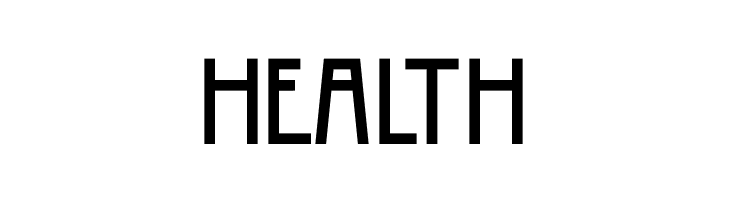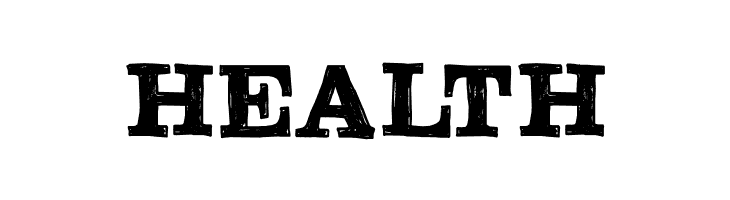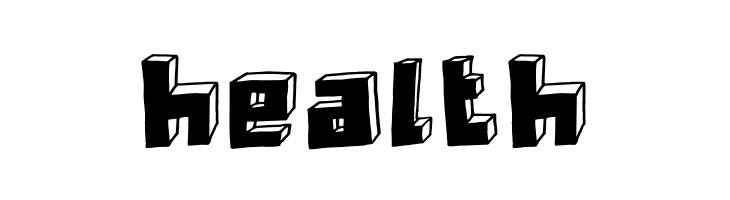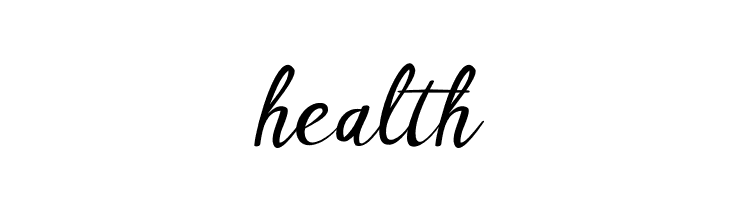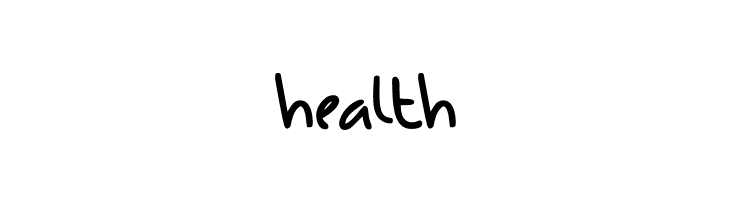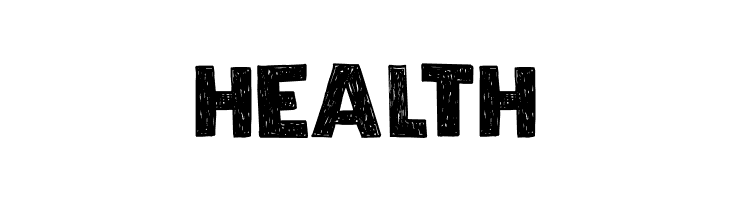
A distressed, graffiti-inspired font with a raw, edgy aesthetic.
A bold, geometric font with angular lines and a modern-retro aesthetic.
A bold, decorative font with a vintage, textured style.
A bold, 3D block-style font with a futuristic and dynamic appearance.
An elegant, flowing script font with ornate uppercase and smooth lowercase letters.
A playful, handwritten font with smooth, rounded strokes and a casual style.
A bold, expressive handwritten font with a brush-like style.
A bold, textured font with a rustic, hand-drawn appearance.
A bold, high-contrast serif font with playful bee illustrations.
A playful, handwritten font with smooth, rounded edges and a casual style.